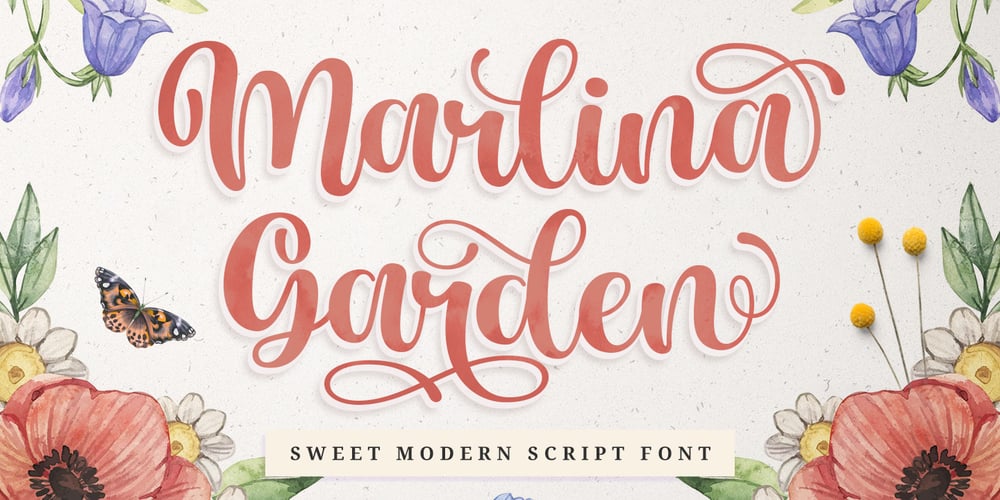
Marlina Garden Font Family was designed by Arif Dwi and published by Kotak Kuning Studio. Marlina Garden contains 1 styles and family package options. Marlina Garden is a sweet modern script font with a contemporary atmosphere and impeccable form, inspired by timeless classic calligraphy. This font was designed to enhance the beauty of your projects.Marlina Garden is perfect for many different projects such as logos & branding, invitation, stationery, wedding designs, social media posts, advertisements, product packaging, product designs, label, photography, watermark, special events, or anything.We highly recommend using a program that supports OpenType features and Glyphs panels such as Adobe Illustrator, Adobe Photoshop CC, Adobe InDesign, or CorelDraw, so you can see and access all Glyph variations.Thanks and have fun!